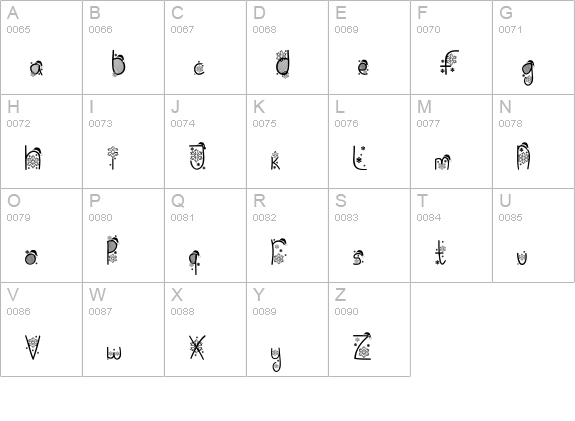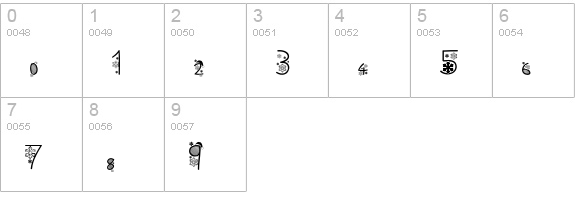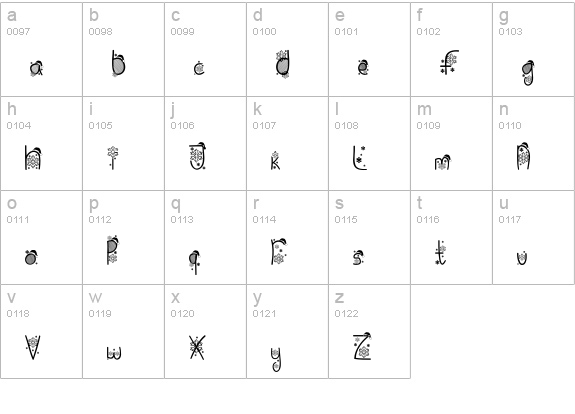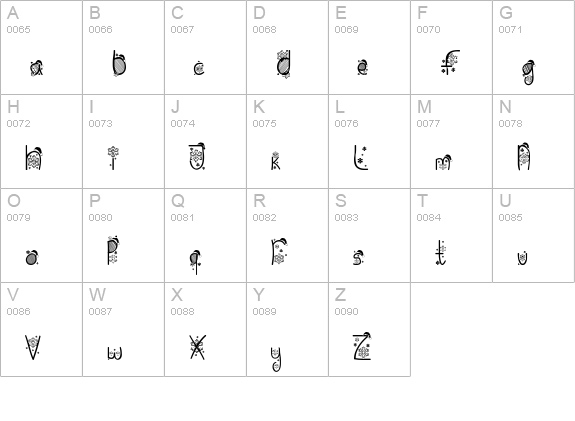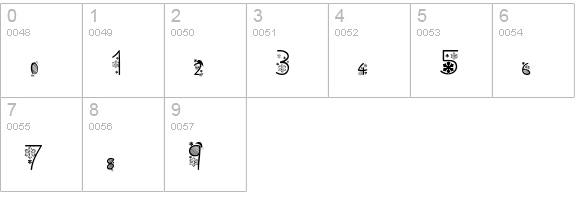
Magic Christmas Font Details
Introducing the enchanting and whimsical Magic Christmas font! This delightful typeface captures the true essence of the holiday season, radiating warmth and joy with every letter. With its playful and intricate design, Magic Christmas is perfect for adding a touch of magic to your Christmas-themed projects. What makes this font even more special is that it is completely free! Yes, you read that right - this stunning font is freely available to download at FontsMarket.com. We believe that everyone should have the opportunity to spread holiday cheer, and what better way to do it than with a beautiful and festive font? Whether you're designing holiday cards, creating personalized gift tags, or crafting eye-catching social media posts, Magic Christmas font will undoubtedly bring a dose of cheer to your creations. Its whimsical letterforms, adorned with delicate snowflakes and twinkling stars, instantly transport you to a winter wonderland. But the magic doesn't stop there. Magic Christmas font also includes a wide range of alternate characters and ligatures, allowing you to customize your text and truly make it your own. Whether you want to add a flourish to your headlines or create a unique wordmark, this font offers endless possibilities. So, why wait? Dive into the holiday spirit and download Magic Christmas font for free at FontsMarket.com. Let your creativity shine and spread the joy of the season with this captivating and festive typeface. Remember, the best gifts in life are free, and this font is undoubtedly a gift that keeps on giving.